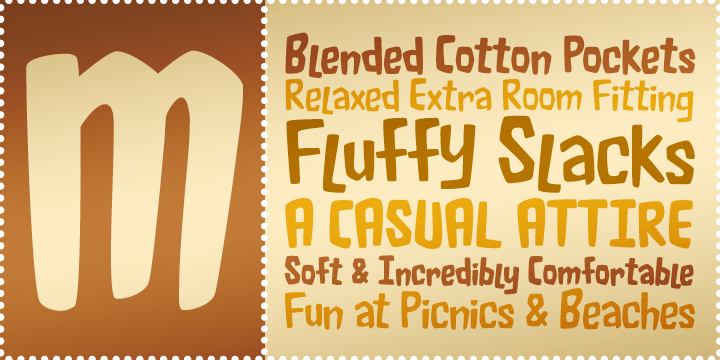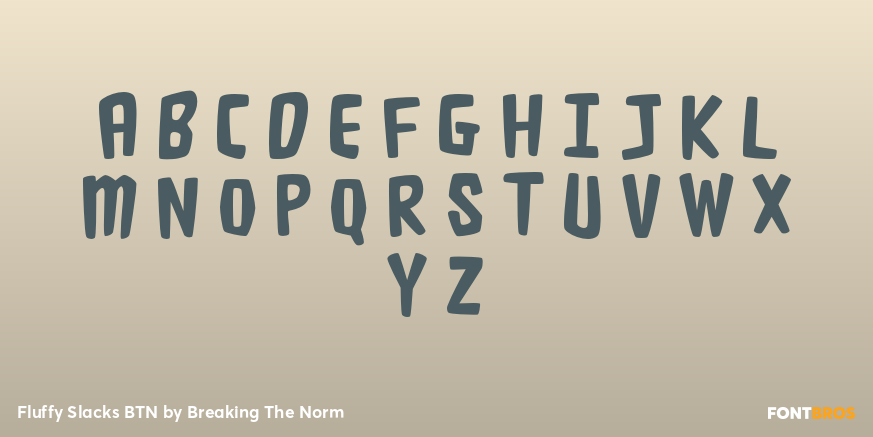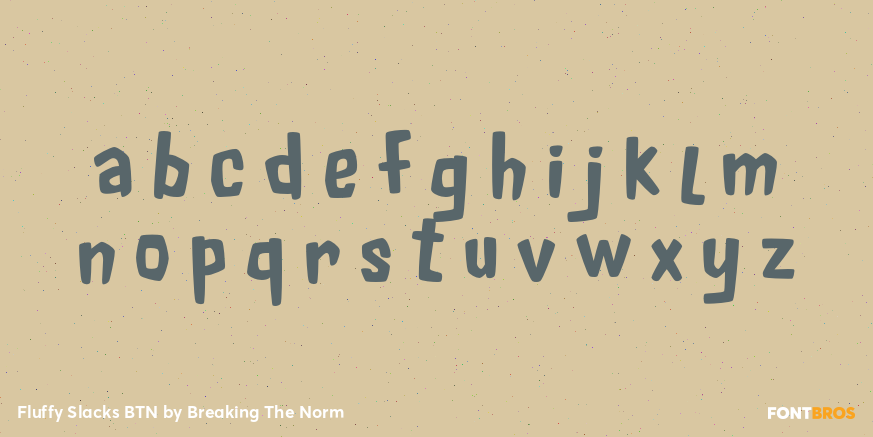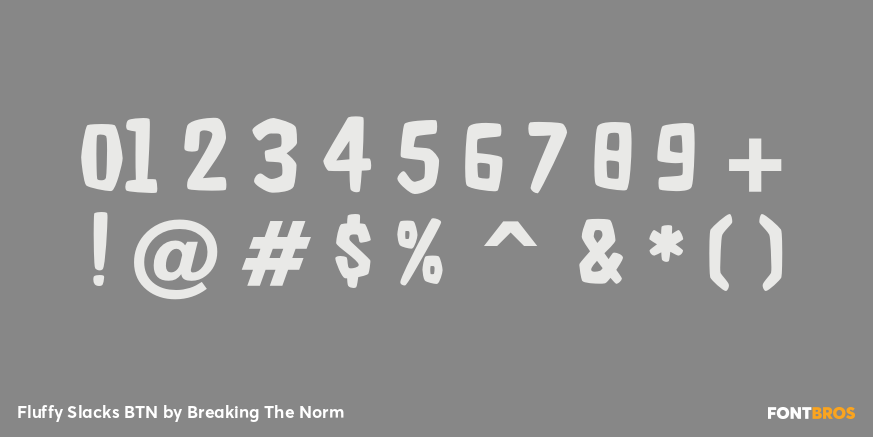
Fluffy Slacks BTN
Font Family by Breaking The Norm
Fluffy Slacks BTN is a casual display family with an easygoing, approachable personality. Its relaxed construction gives it an informal voice that feels friendly and unpretentious, making it a natural fit for signage, headlines, packaging, posters, craft projects, and playful branding. With Light, Regular, and Bold weights, Fluffy Slacks BTN offers flexible options for designs that need a soft, laid-back look without losing clarity. It brings a comfortable handmade feel to display typography, ideal for projects that want to appear welcoming, informal, and full of character.